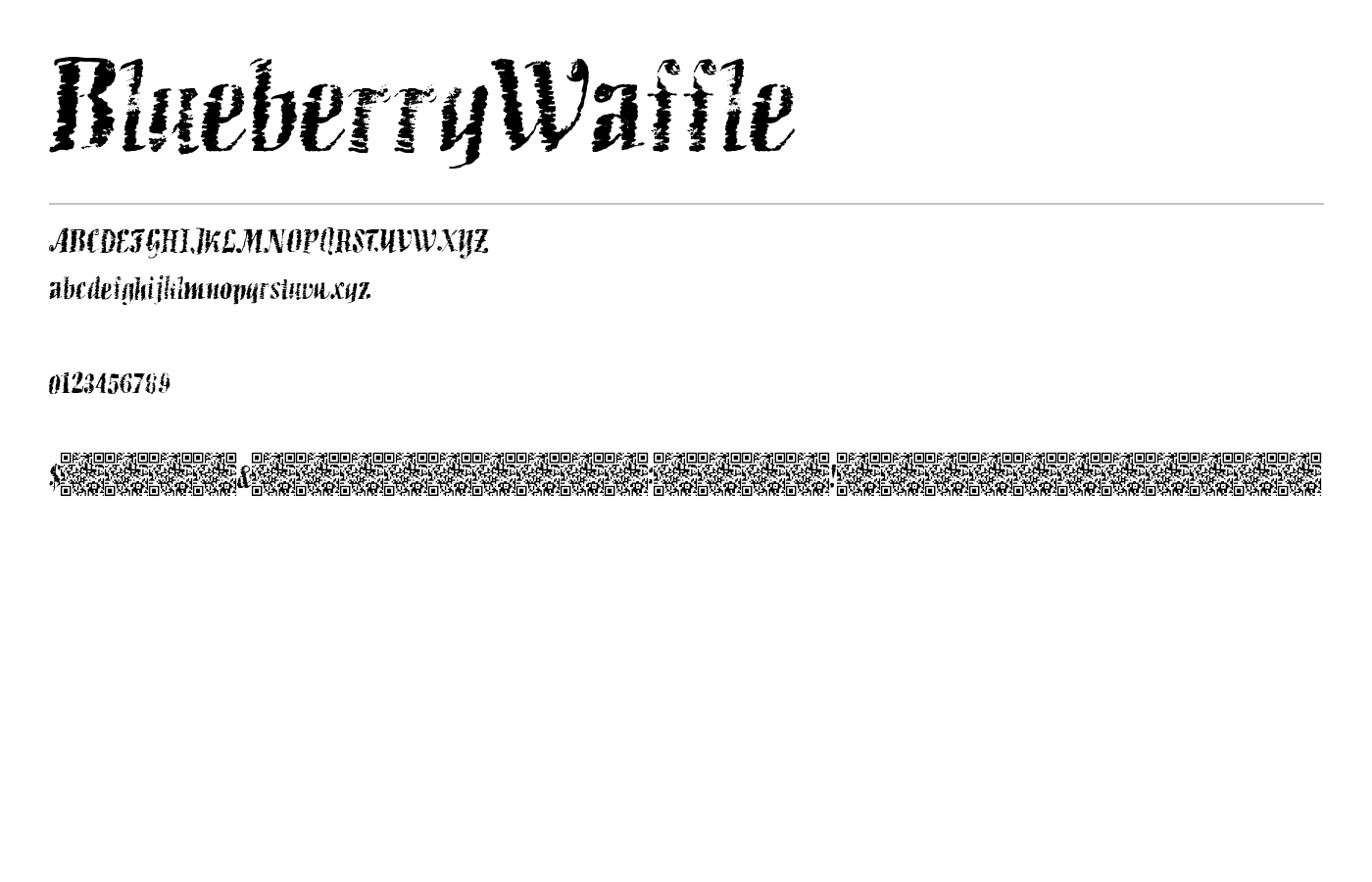
BlueberryWaffle is a distressed serif font with a bold, textured appearance that evokes a vintage, handcrafted feel. Its narrow, condensed letterforms and high contrast strokes give it a dramatic yet rustic charm, making it ideal for creative projects that want to convey personality and authenticity. This font works well in logos, posters, and branding where a strong, eye-catching statement is desired.
BlueberryWaffle Font
About BlueberryWaffle Font